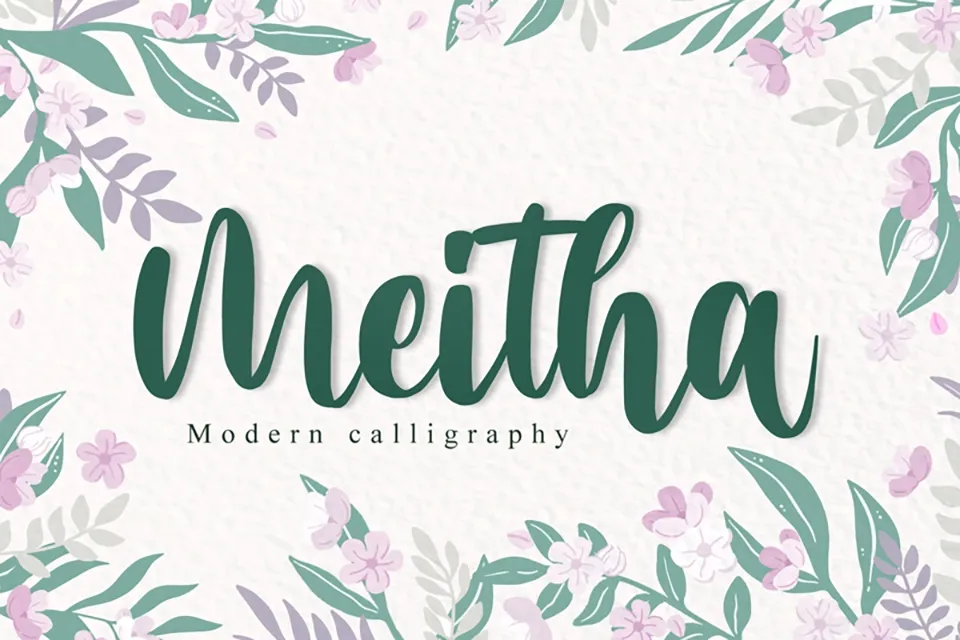
Meitha Font
Meitha Font is an incredibly beautiful script typeface. It has a classy, elegant and modern look that can be used for logos, branding, invitations, stationery, wedding designs, social media posts, and much more!